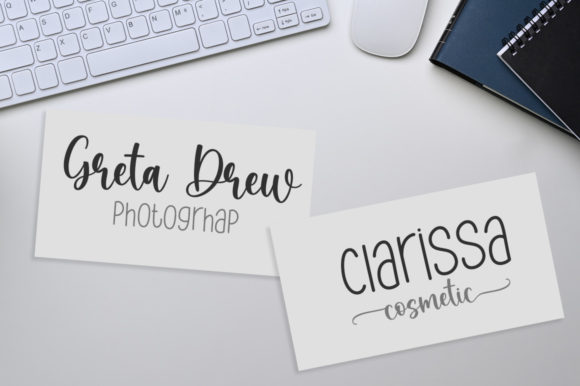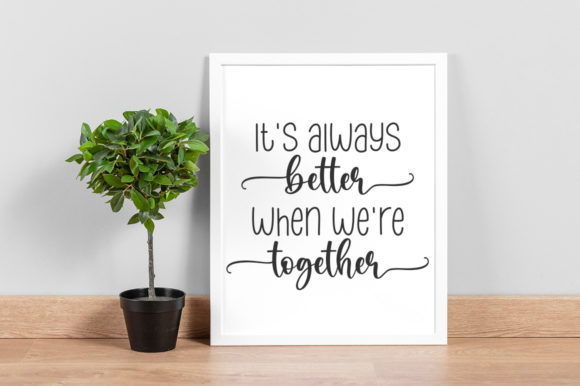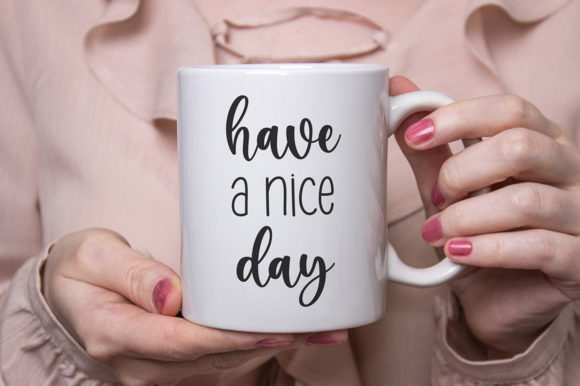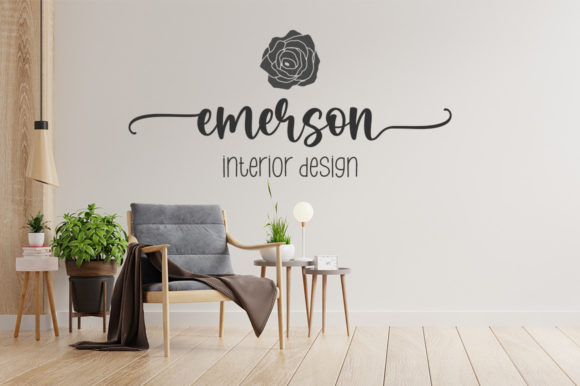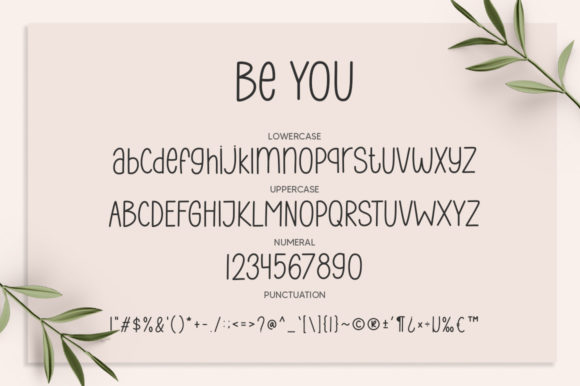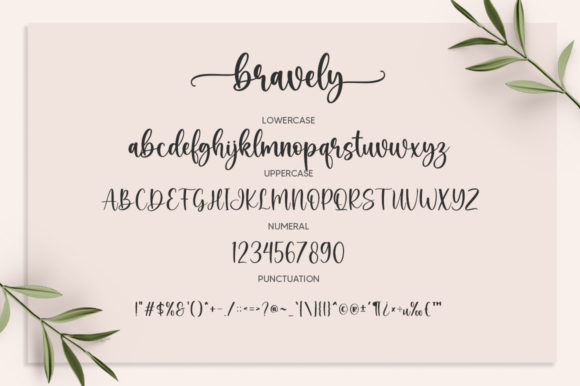
Unlock Your Creative Potential with Be You Bravely Font
Have you ever stared blankly at a blank canvas, wondering how to bring your artistic vision to life? The pressure to create something unique and captivating can be overwhelming, but what if I told you there’s a secret to unlocking your full creative potential? For designers and crafty enthusiasts, the right font can be the missing piece of the puzzle.
Enter Be You Bravely Font, a stunning duo of fonts designed to complement each other perfectly. Whether you’re working on a personal project or creating digital content, these fonts are the perfect addition to add a touch of elegance and whimsy. With its PUA encoding, accessing all glyphs and swashes is a breeze, giving you the freedom to express yourself without limitations.
Be You Bravely Font Key Features
- Unique Characteristics: The Be You Bravely font features a modern and bold design with a unique blend of elegance and playfulness, making it perfect for inspiring confidence and self-expression.
Be You Bravely Font Review
I was excited to dive into the Be You Bravely Font, and overall, it has some great qualities that make it a solid addition to any designer’s toolkit. ✨
- Unique and bold character set – The font has a distinct, modern feel that sets it apart from more generic sans-serif fonts.
- Good legibility – The font is easy to read, even at smaller sizes, which is a must for any font.
- Customizable – The font comes with a range of weights and styles, allowing designers to tailor the look to their specific needs.
However, there are some limitations that should be considered:
- Limited language support – The font only supports a limited range of languages, which may be a concern for designers working with multilingual clients.
- No italic or oblique styles – While the font has a range of weights, it’s missing the italic and oblique styles that many designers rely on.
Overall, I’d say the Be You Bravely Font is a solid choice for designers looking for a modern, bold font. While it’s not perfect, its strengths outweigh its weaknesses, and it’s definitely worth considering for your next project.
Tips for Getting the Most Out of Be You Bravely Font
Use Be You Bravely font to add a touch of elegance and sophistication to your designs. Experiment with different font sizes and colors to create visual interest. This font is particularly well-suited for headings, titles, and quotes.
Use Be You Bravely font for:
- Quotes and motivational phrases
- Product